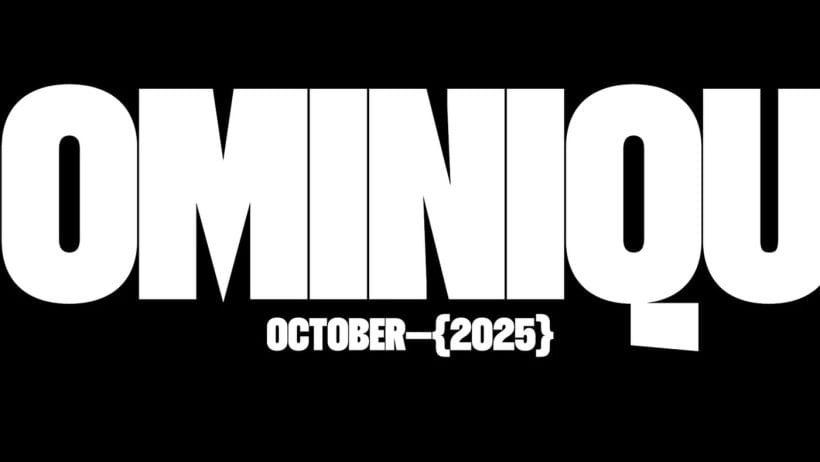
Dominique Variable Display Typeface, Rajesh Rajput's Adaptive Font for Logos, Headlines & UI
Dominique, condensed variable display font with 18 styles, turns letters into architectural blocks for bold, modern identities.
Dominique: Condensed Architectural Display Typeface Specimen
As a branding curator, I champion type that shapes identity with clarity, force, and precision. Dominique is a condensed display variable font, offering eighteen cohesive styles on one axis. Its dense, architectural counters and extreme stroke contrast create arresting hierarchy for editorial and digital systems.
This family scales with discipline, resolving tight baselines and bold compositions in limited space. Designers can modulate weight precisely, turning letterforms into modular building blocks for posters and identities. Explore the specimen to see how geometric voids and sharp curves deliver modern typographic monumentality.
In practice, pair Dominique with wider geometric sans serifs to establish layered visual hierarchies. Its condensed proportions free up space while maintaining impact, ideal for mastheads and identity marks. The variable axis simplifies workflow, allowing precise tuning without juggling multiple static weights. You will find inspiration in the specimen layouts, which showcase poster scale, editorial grids, and newsprint applications. As a curator, I recommend testing extreme contrasts at large sizes, then refining for body text balance. Dominique is a strategic tool for identity architects who need bold, disciplined type systems that scale. This specimen rewards close study and bold experimentation.